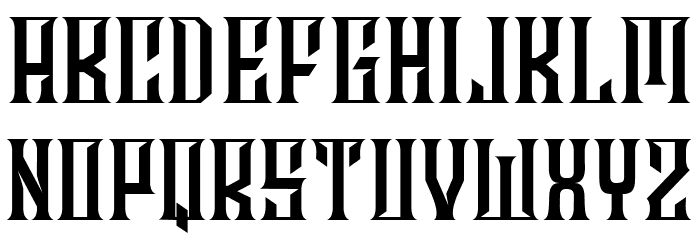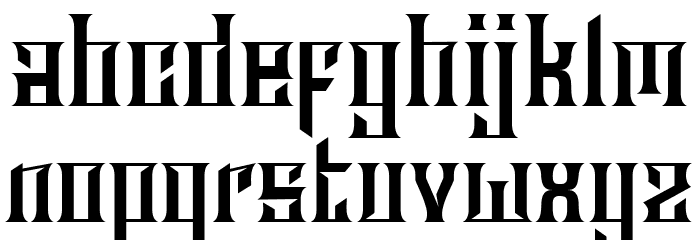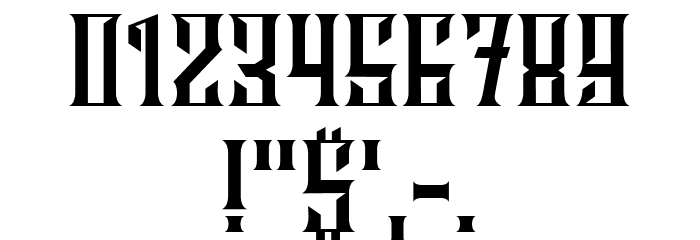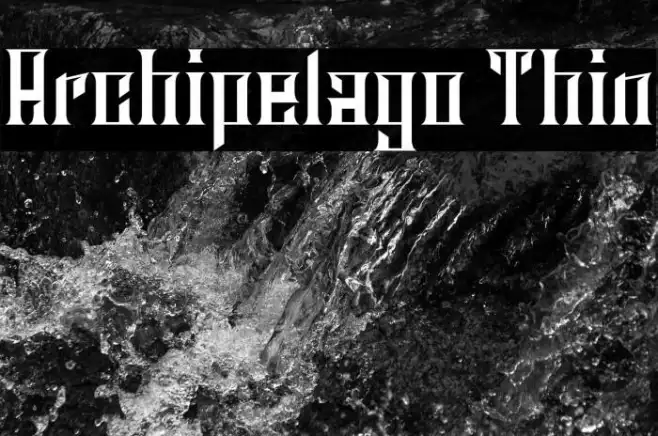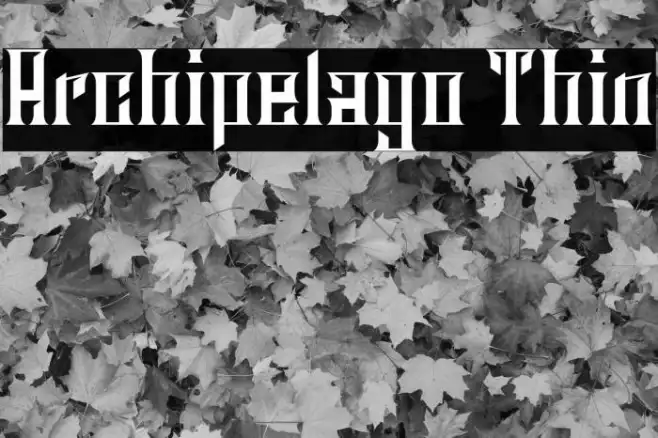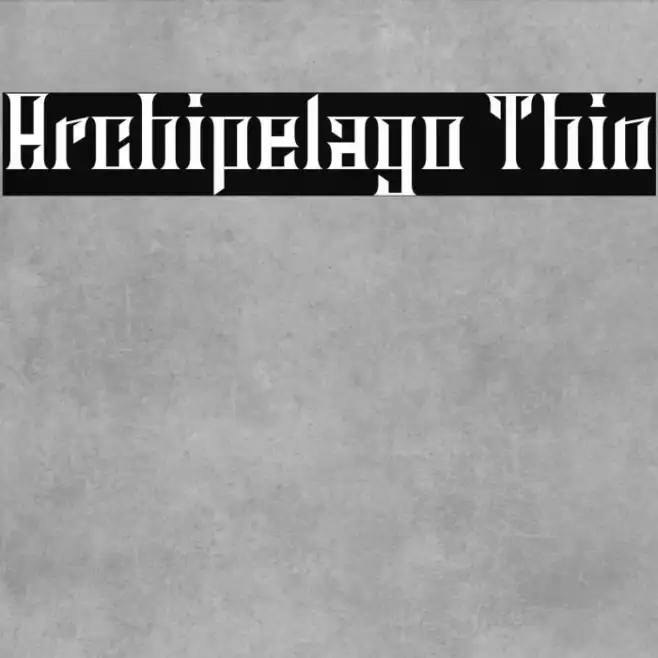
Archipelago Thin Font
This font features a bold, angular design with a strong presence. The characters are constructed with sharp, geometric lines that create a striking and modern appearance. The uppercase letters are particularly prominent, with a uniform height and width that gives them a block-like quality. The lowercase letters maintain the same angular style, providing a cohesive look across the typeface. Numbers and special characters are designed to match the boldness and geometric nature of the alphabet, ensuring consistency throughout. The overall style is reminiscent of Gothic or Blackletter fonts but with a contemporary twist, making it suitable for modern design projects that require a bold statement.
A bold, angular font with a modern, geometric style.
- Font: Archipelago Thin
- Weight: Thin
- Proposed Projects: Ideal for branding, posters, album covers, and any project that requires a bold, eye-catching typeface.